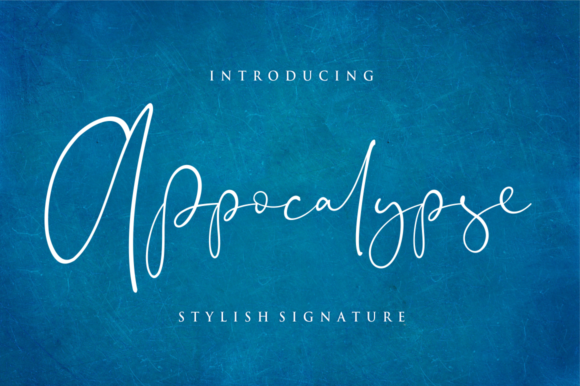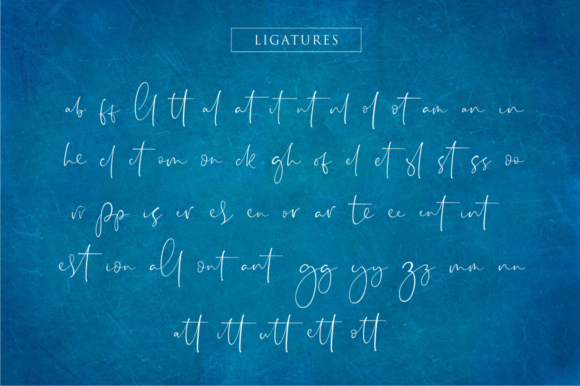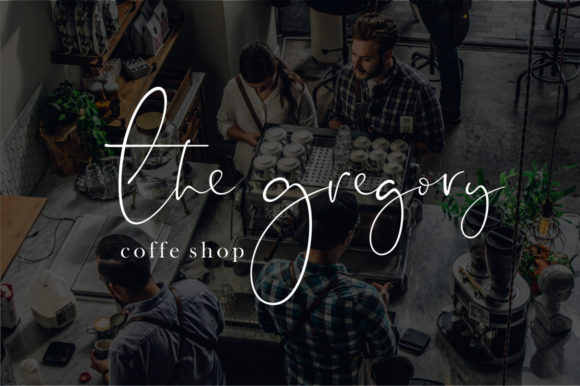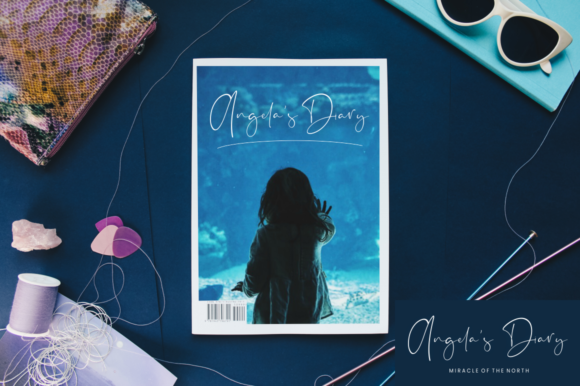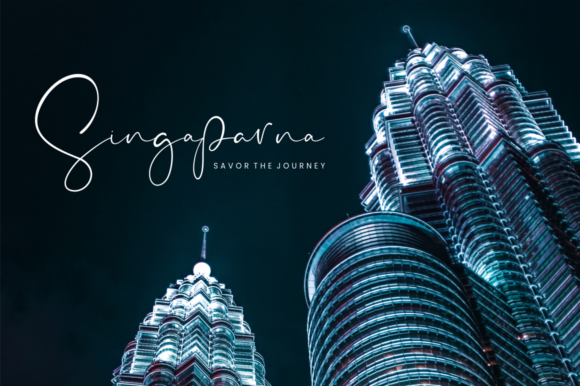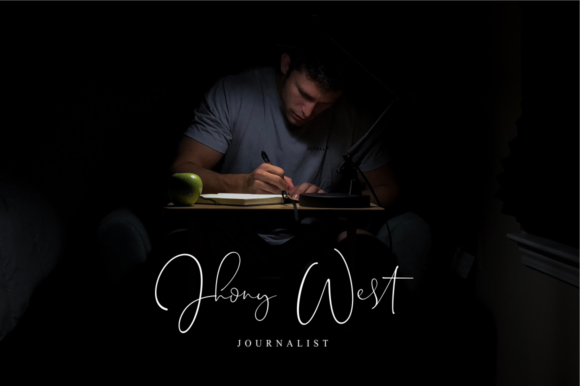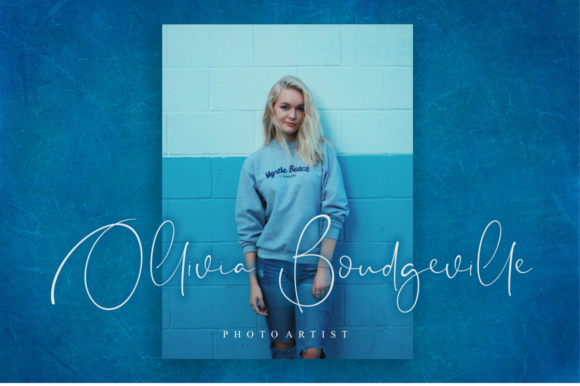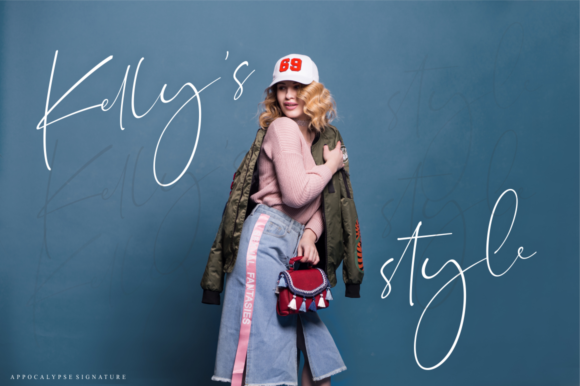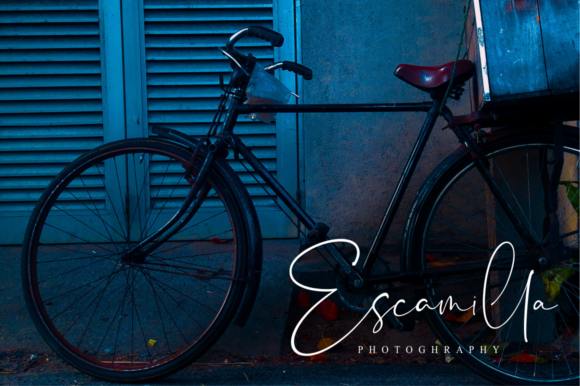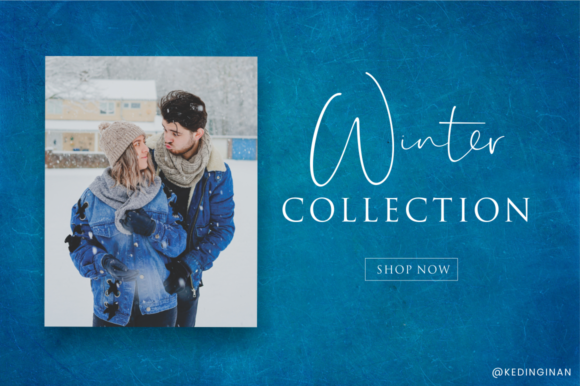
Appocalypse Font
About Appocalypse Font
The Appocalypse is a simple, yet classy signature font. It has a good readability and comes with an elegant, classy style.